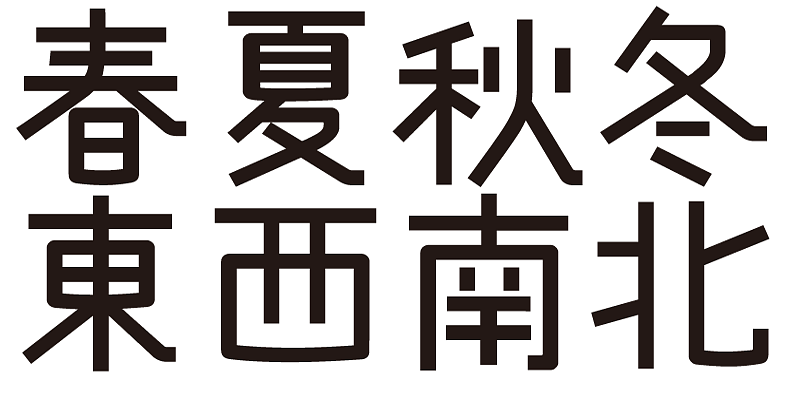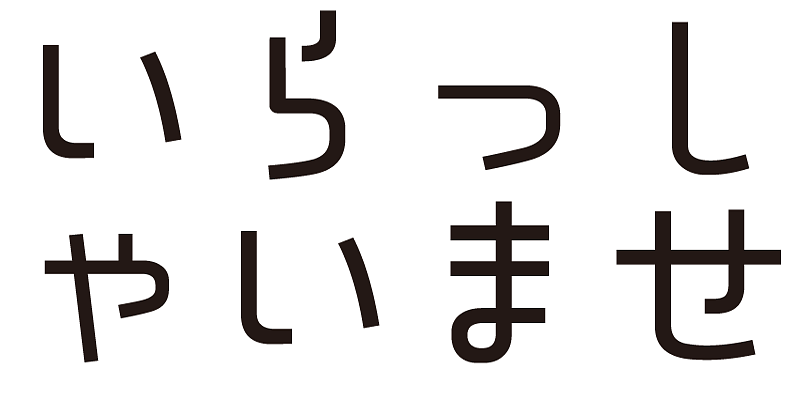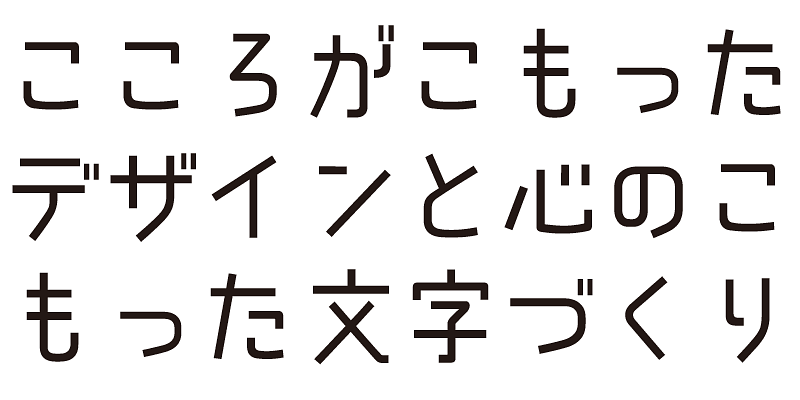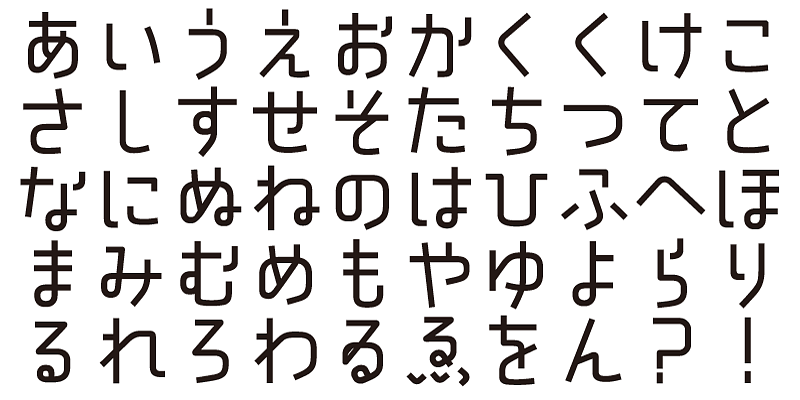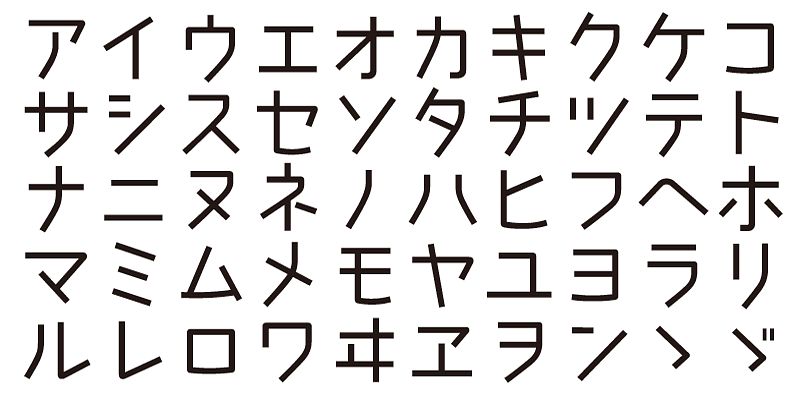
ADS-stage1 is a mature design with a traditional style – beautiful yet not too extravagant and showy.
Each font in this typeface family includes 1,000 kanji characters, as well as hiragana, katakana, alphanumeric characters, and punctuation marks.
We design typefaces with the hope that they will add underlying meaning to words expressed. We wish the user to feel good and experience comfort and joy when using these typefaces.